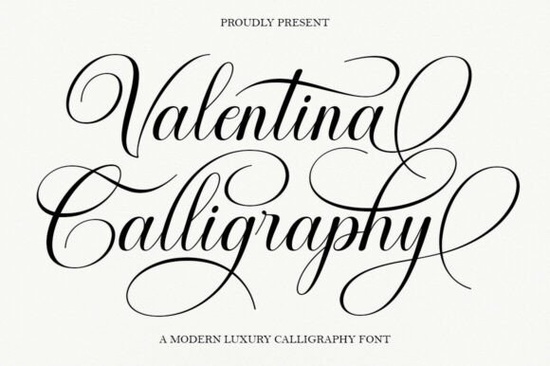
Finding the right script font for invitations, branding, or packaging can be tricky. You want something elegant but readable, classic but not outdated. The Valentina Calligraphy Font strikes that balance beautifully a refined copperplate-inspired calligraphy script with a modern polish that works across a wide range of design projects.
Whether you're designing wedding stationery, building a beauty brand, or creating print-on-demand products, here's what you should know about this typeface before adding it to your toolkit.
What Makes Valentina Calligraphy Different from Other Script Fonts?
Most calligraphy fonts fall into two camps: overly ornate and hard to read, or too simple and lacking personality. Valentina sits in a comfortable middle ground. Its letterforms are smooth and feminine, with clean connections that keep text legible even at smaller sizes.
Where Does This Font Work Best?
Valentina's design leans toward formal elegance with a modern sensibility, making it a natural fit for:
- Wedding invitations and event stationery
- Logos for fashion, beauty, or lifestyle brands
- Restaurant menus and café branding
- Product packaging for cosmetics and skincare
- Greeting cards and gift tags
- Book covers and magazine layouts
- Social media graphics and advertising materials
It reads well both on screen and in print, which matters if you sell physical products through platforms like Etsy or offer digital downloads.
How Does It Compare to Other Elegant Script Fonts?
If you're building a font library for design work, it helps to understand where Valentina fits alongside other popular scripts.
Coconut Mocha Font offers a more relaxed, handwritten feel better suited for casual branding or coffee shop aesthetics. Vintage Melinda Font leans into retro charm with a more decorative, old-world character.
Valentina is more refined and structured than Samantha Handwriting Font, which has a looser, more personal handwritten quality. If you need something playful, Cutie Slime Duo Font goes in a completely different direction with fun, youthful energy. And for a delicate, thin-stroke option, Daintyline Font provides a lighter touch that pairs well with minimalist layouts.
Each of these serves a different mood and purpose. Valentina's strength is that sophisticated, luxurious feel the kind that reads as premium without being over-the-top.
Who Is This Font a Good Fit For?
This typeface works well for anyone whose projects need both elegance and readability:
- Wedding stationery designers who need reliable calligraphy-style lettering
- Print-on-demand sellers looking for upscale font options for mugs, tote bags, or wall art
- Small business owners creating branding materials on a budget
- Crafters using Cricut or Silhouette machines for personalized projects
- Content creators designing social media templates or digital products
- Clean letterforms optimized for both digital and print use
Building a Versatile Font Collection
One font rarely covers every project. If you're expanding your library of calligraphy and script typefaces, a few options pair nicely alongside Valentina. The warm, casual Coconut Mocha style handles relaxed branding work, while